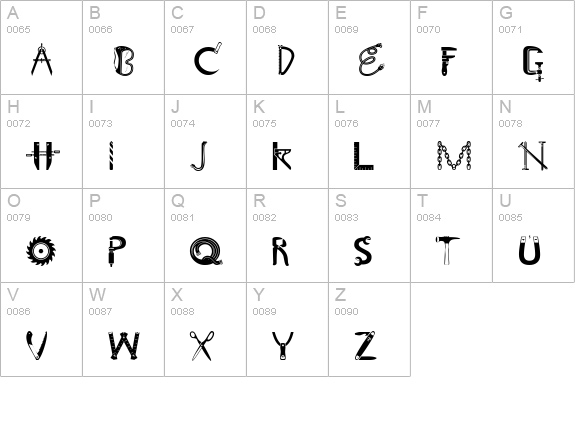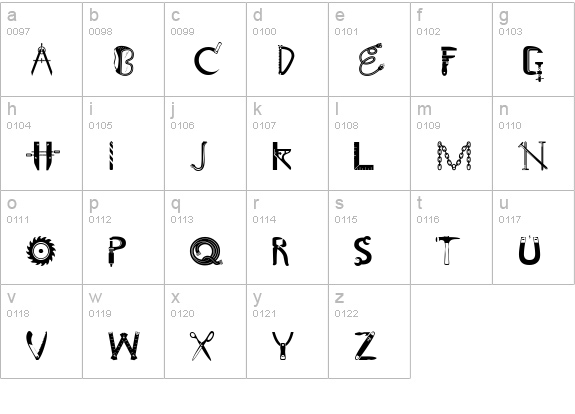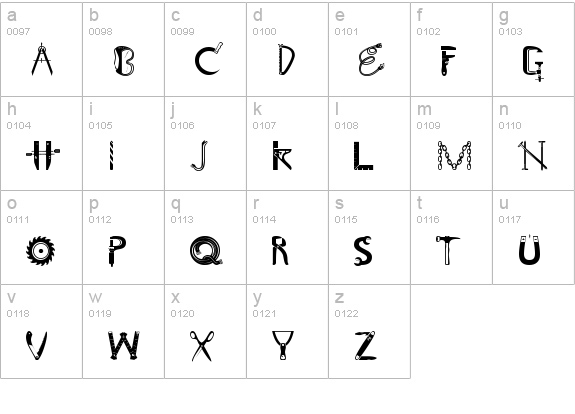
ToolShopCaps Font Details
Introducing ToolShopCaps font, a versatile and captivating typeface that combines the ruggedness of tools with the elegance of typography. This unique font is perfect for adding a touch of craftsmanship and industrial charm to any creative project. ToolShopCaps font features a bold and uppercase design, reminiscent of engraved lettering found on vintage tools. Each character is carefully crafted with sharp edges and clean lines, creating a powerful and impactful visual impact. Whether you're designing a logo for a construction company, creating a flyer for a handyman service, or crafting a poster for a woodworking workshop, ToolShopCaps font is sure to make a lasting impression. The best part? ToolShopCaps font is available for free download exclusively at FontsMarket.com. This means you can easily access and utilize this extraordinary font without breaking the bank. Enhance your designs and elevate your projects with the unique aesthetic of ToolShopCaps font, all without spending a dime. With its bold and commanding presence, ToolShopCaps font is incredibly versatile and can be used across various design applications. From branding and packaging to posters and signage, this font will add a professional and distinctive touch to any project. Its timeless appeal and strong visual impact make it a go-to choice for designers looking to make a statement. Don't miss out on this amazing opportunity to enhance your design arsenal with ToolShopCaps font. Visit FontsMarket.com today and unlock the creative potential of this free font. Download, install, and start creating extraordinary designs that are sure to leave a lasting impression.